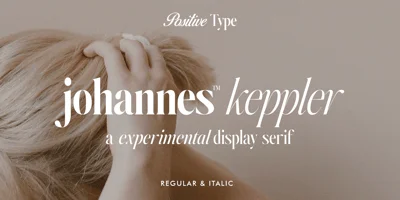
Johannes Keppler Font
Johannes Keppler Font is perfect for astronomical research publications, planetary science presentations, observatory educational materials, mathematical institute communications, scientific journal layouts, historical science exhibitions, academic manuscript reproductions, Renaissance studies documentation, celestial navigation materials, and distinguished scientific legacy branding.
What makes Johannes Keppler Font so exciting is its extraordinary ability to embody the revolutionary precision and mathematical brilliance of the legendary astronomer through meticulously calculated letterforms that seem crafted according to the same celestial laws that govern planetary motion and blessed with the kind of scientific authority that comes from discovering fundamental truths about the universe. This font captures the essence of Renaissance scientific achievement and mathematical excellence, featuring systematically proportioned characters that appear designed by scholars who understand that typography, like astronomy, requires precise observation and mathematical harmony to achieve perfect results. The scientifically refined letter shapes create an atmosphere of scholarly authority and astronomical precision, making every word feel like it carries the weight of cosmic discovery and the promise of unlocking the mathematical secrets that govern celestial mechanics and planetary movement.
The Johannes Keppler Font family includes Light, Regular, Medium, Bold, and Scientific variations, along with astronomical symbols and mathematical decorative elements. Each style maintains the font's distinctive scholarly character while offering versatility for different academic applications, from precise mathematical notation to commanding scientific headlines that announce breakthrough discoveries in astronomy and planetary science research.
This scholarly typeface brings authentic Renaissance scientific aesthetics to contemporary research projects. The Johannes Keppler Font provides designers with an invaluable resource for creating memorable brand identities that communicate scientific precision, mathematical excellence, and astronomical authority. Whether you're developing observatory branding, designing scientific publication materials, or creating educational astronomy communications, this font delivers unmatched scholarly credibility and scientific authenticity.
The precisely engineered letterforms in Johannes Keppler Font feature mathematical proportions and systematic clarity that ensure optimal performance in scientific applications while expressing the disciplined observation and systematic methodology that define successful astronomical research. Each character has been designed to maintain perfect legibility while conveying the intellectual rigor and mathematical precision that separate true scientific achievement from mere speculation. The font's distinctive personality makes it ideal for applications requiring genuine scientific authority and astronomical research credibility.
Scientific and academic professionals appreciate how Johannes Keppler Font effortlessly communicates expertise, mathematical precision, and scientific excellence while honoring the legacy of one of history's greatest astronomers whose laws of planetary motion revolutionized human understanding of the cosmos. The comprehensive character set includes astronomical symbols, mathematical notation, scientific indicators, and extensive international language support, ensuring global compatibility while maintaining its distinctive Keplerian identity. This makes it an invaluable resource for observatories, scientific institutions, academic publishers, and any organization seeking typography that embodies the fundamental values of scientific inquiry, mathematical precision, and the kind of intellectual courage that enables extraordinary individuals like Johannes Kepler to challenge conventional wisdom, discover universal laws, and expand human knowledge through the patient application of mathematical rigor to astronomical observation, proving that the universe operates according to elegant mathematical principles that can be understood through careful study and systematic investigation of celestial phenomena.